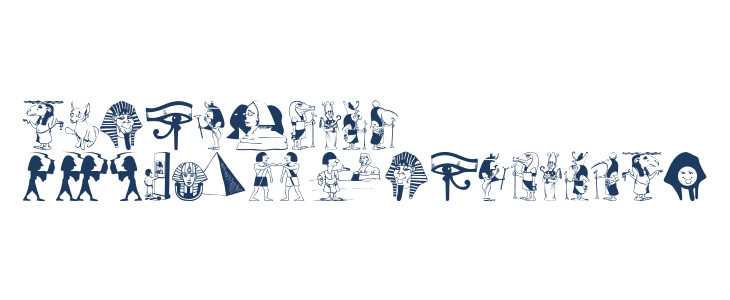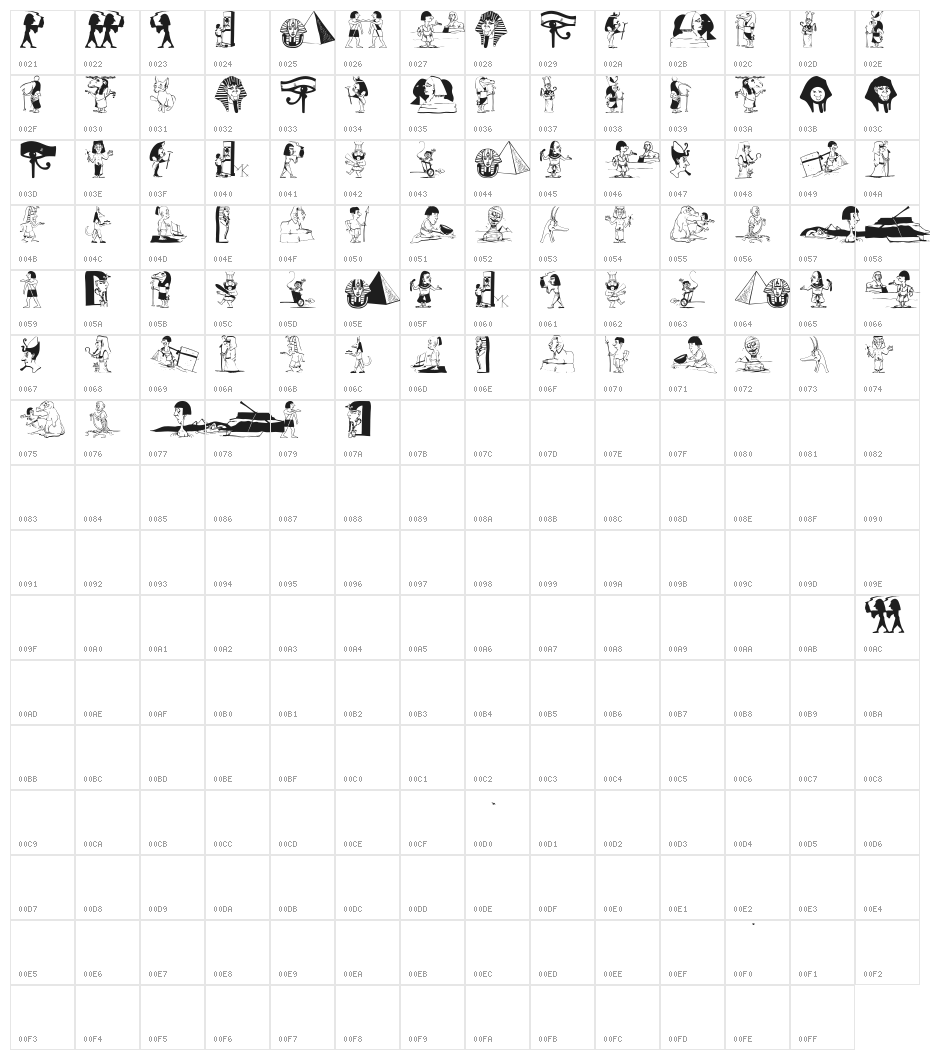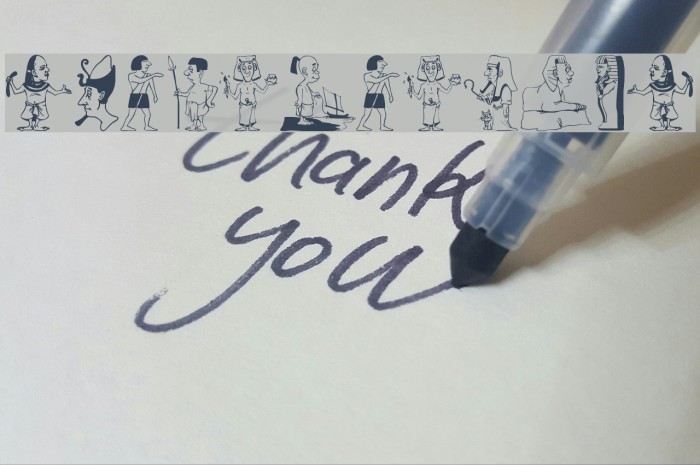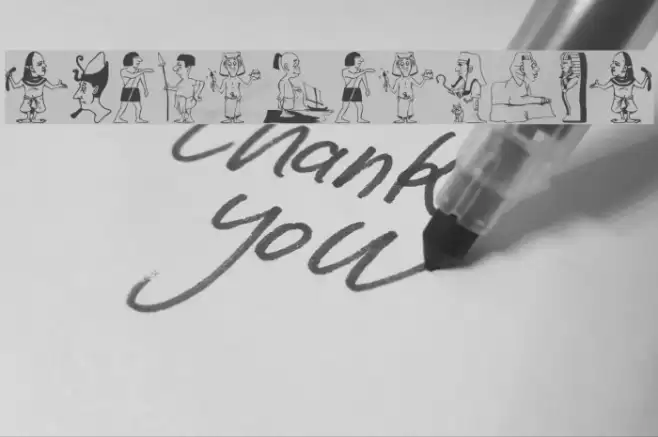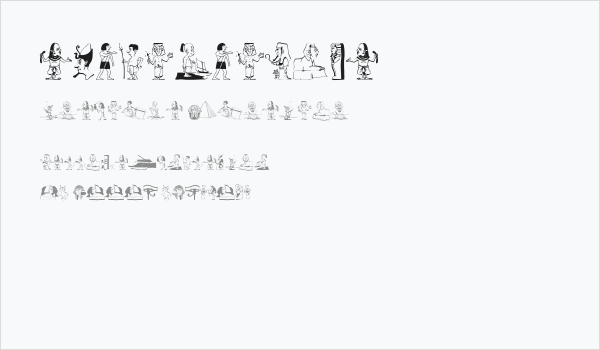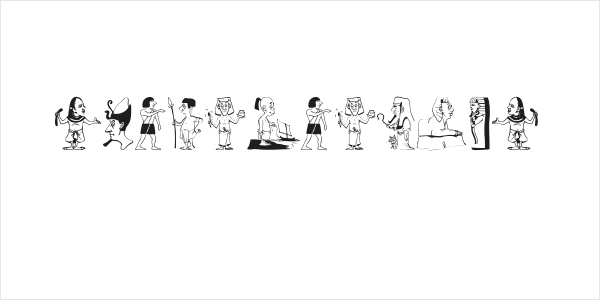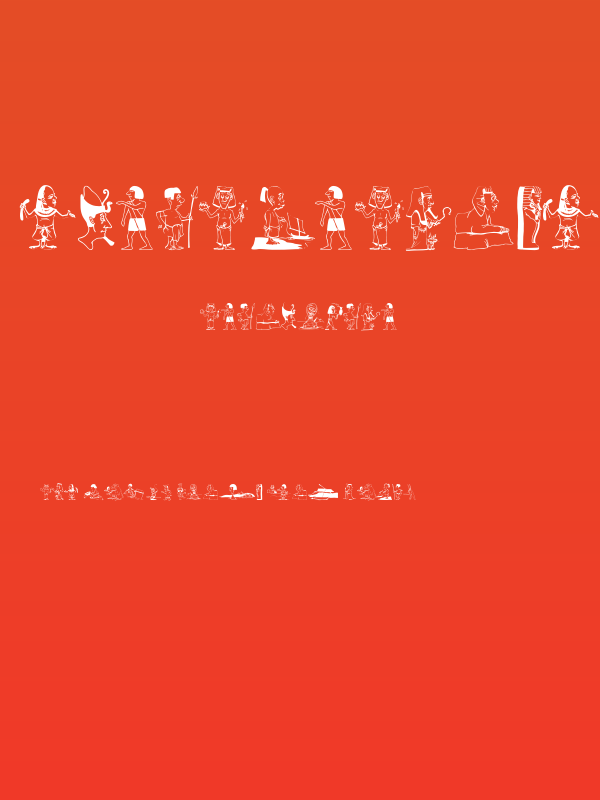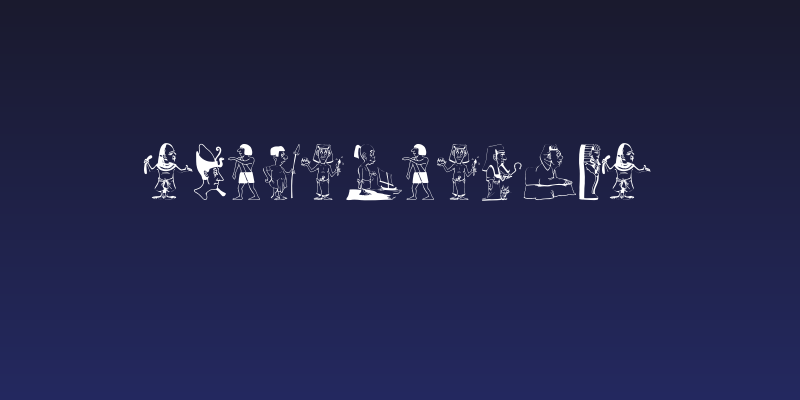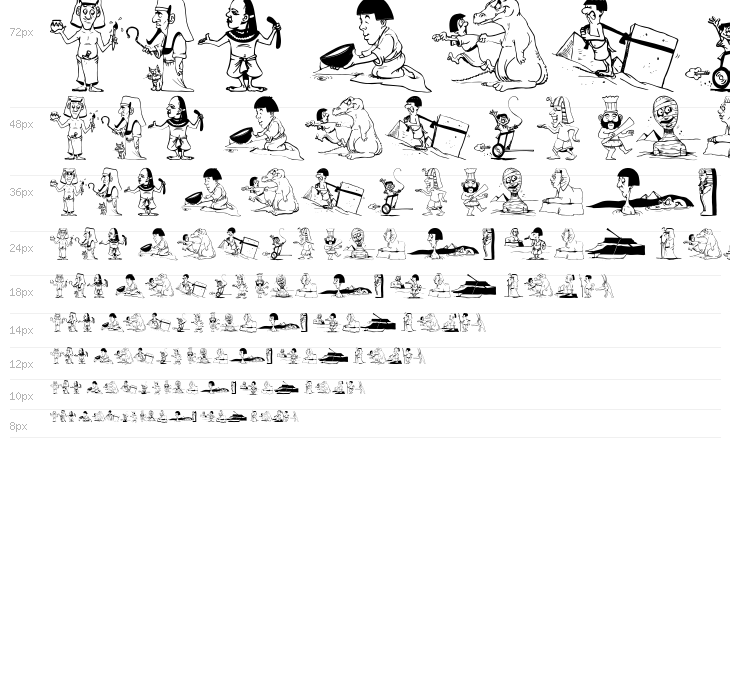
EgyptMythOne Font
EgyptMythOne Description
This is a decorative font featuring playful and whimsical illustrations inspired by ancient Egyptian mythology and culture. Each character is represented by a unique cartoon-style depiction of Egyptian figures, symbols, and artifacts. The illustrations are detailed, with a mix of bold and fine lines, capturing the essence of Egyptian art with a humorous twist. The characters include pharaohs, pyramids, hieroglyphs, and gods, each rendered in a lively and engaging manner. The font is highly decorative, making it suitable for creative and thematic projects that seek to evoke a sense of ancient history with a modern, fun approach.
| Use Case | Logos, Posters, Themed Events |
| Proposed Projects | Ideal for themed event invitations, educational materials, children's books, and creative posters. |